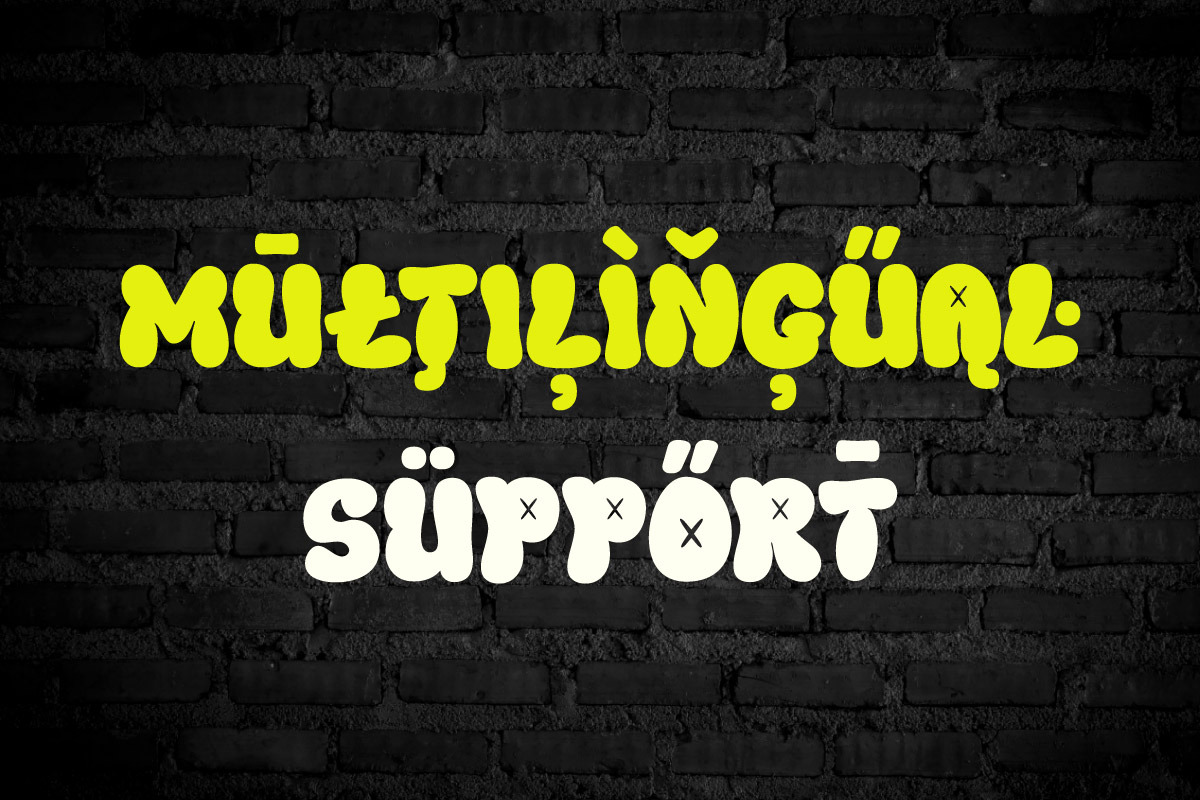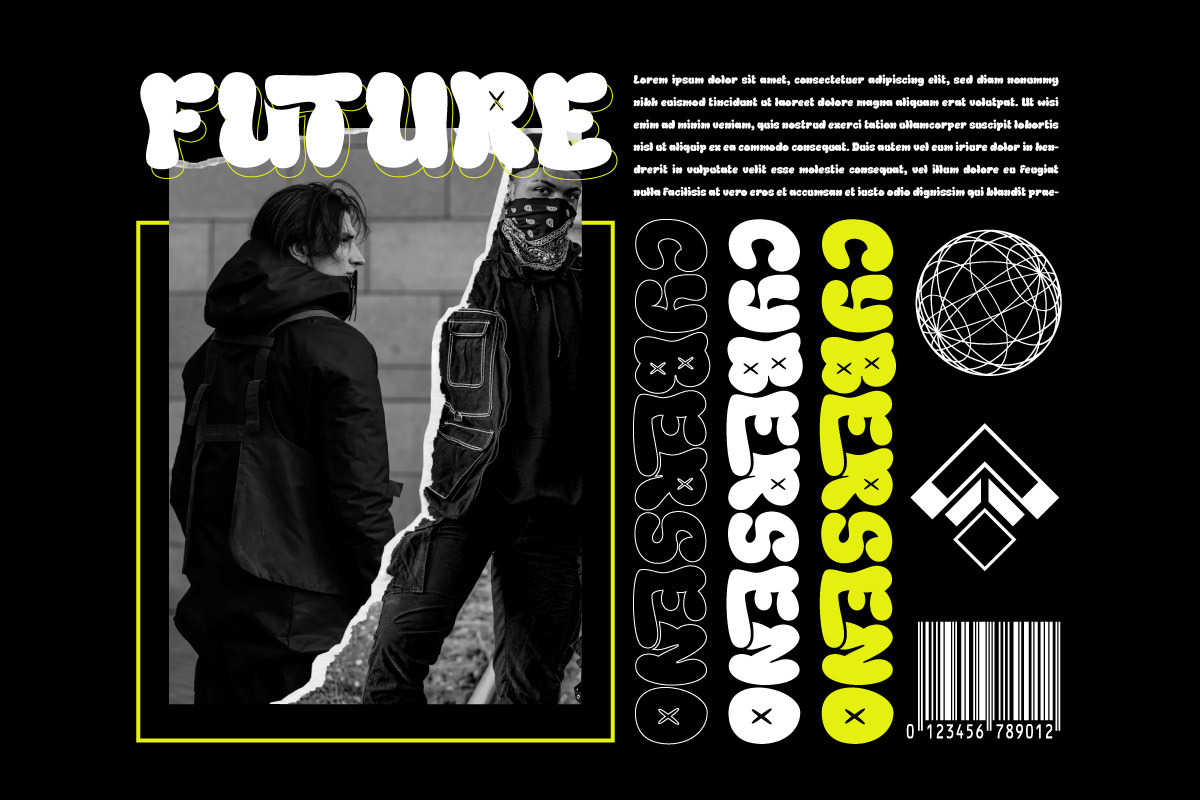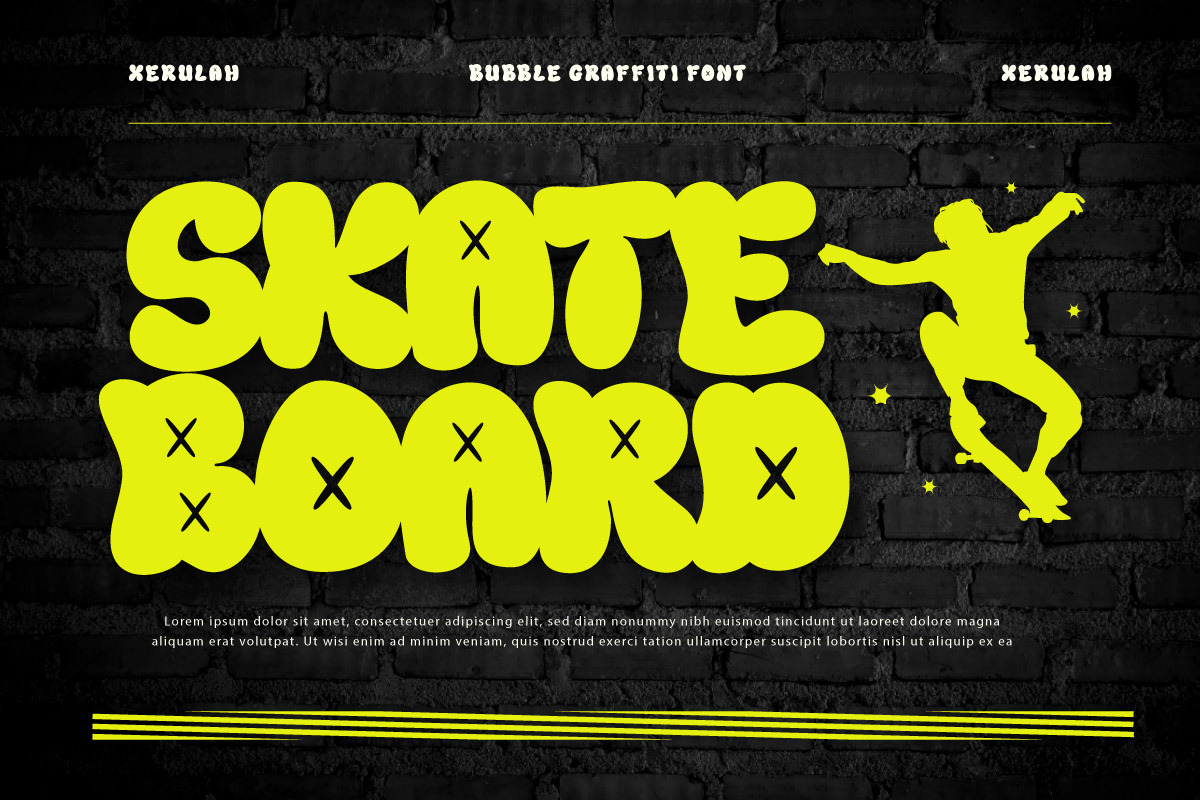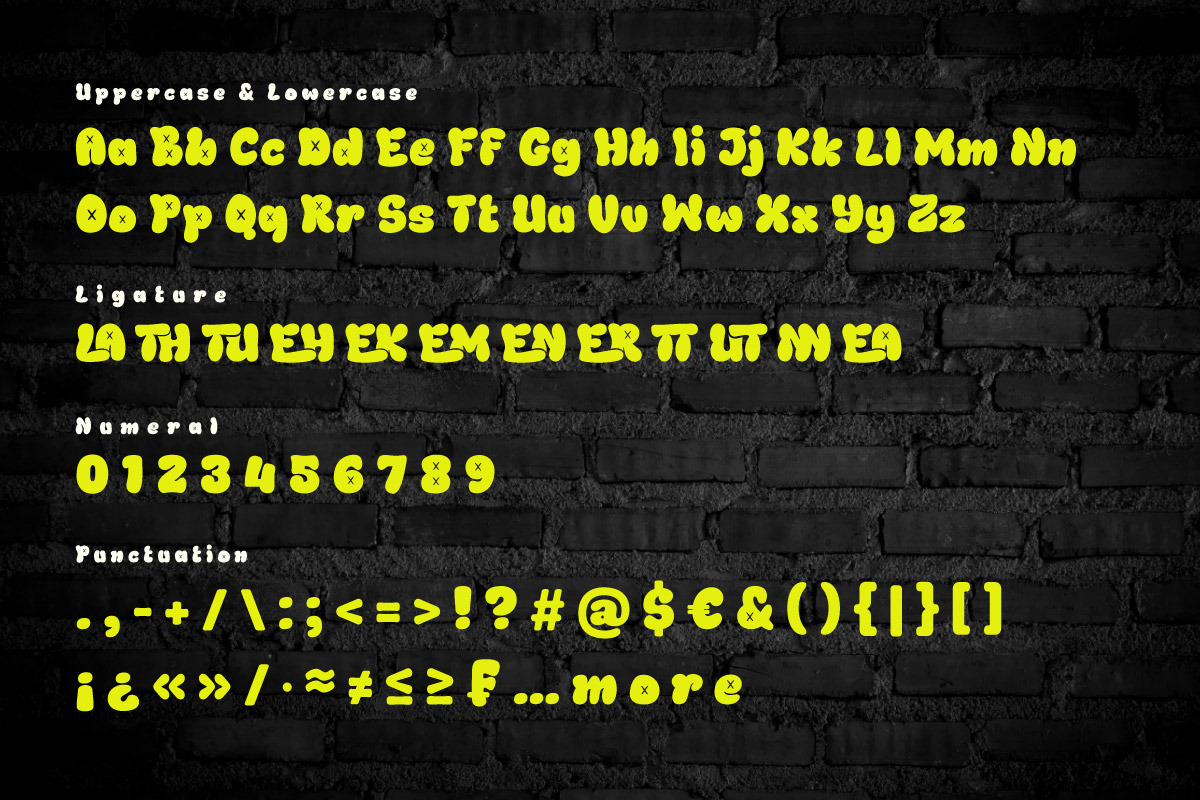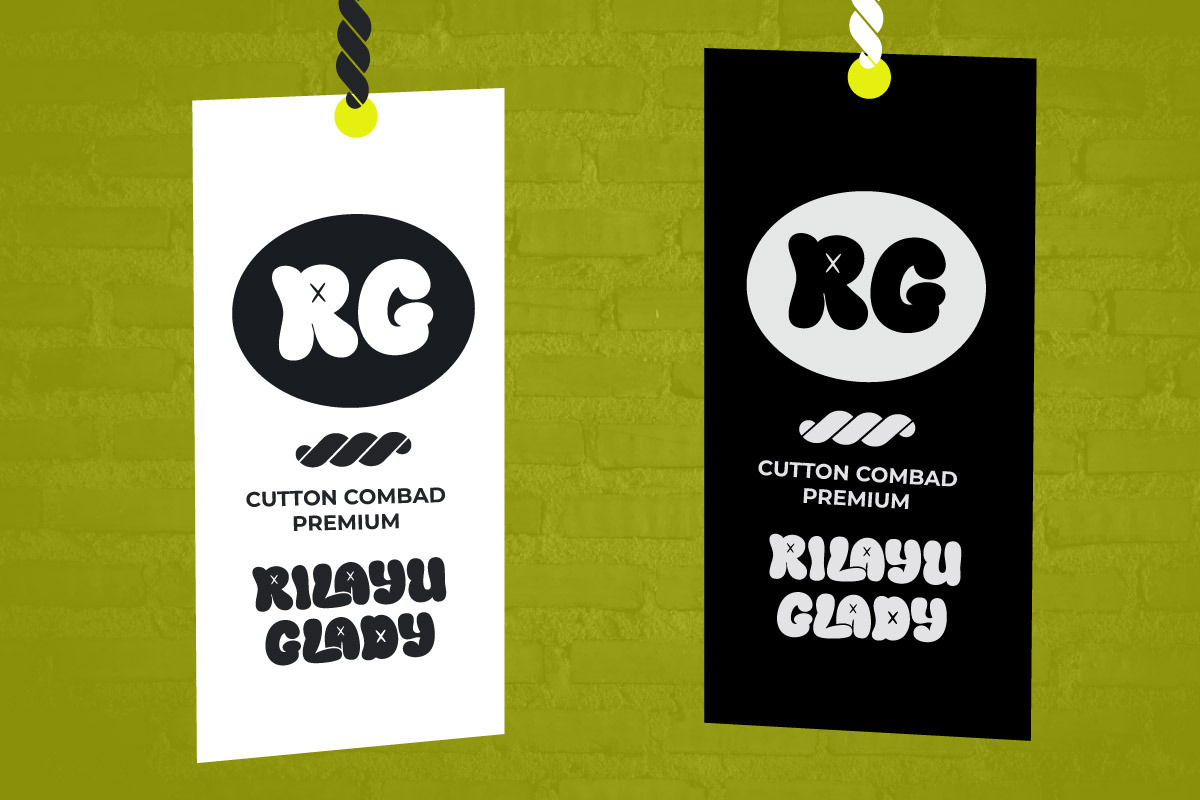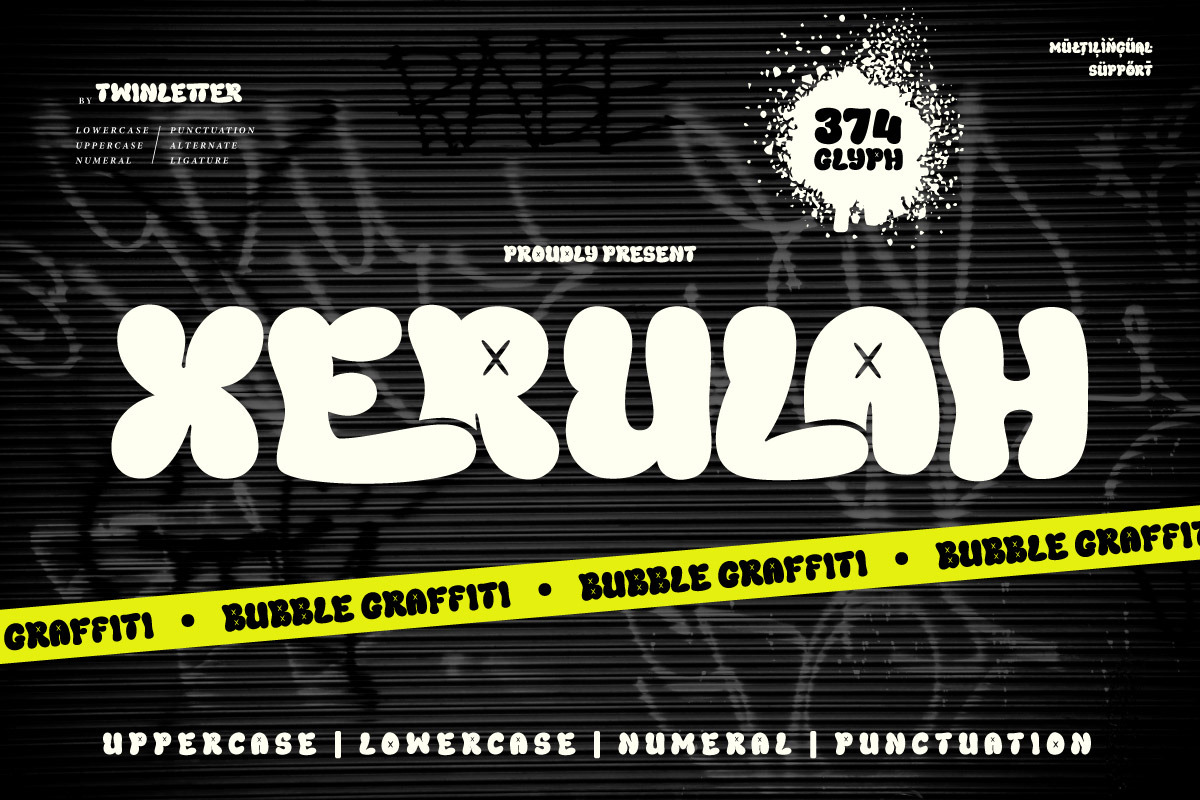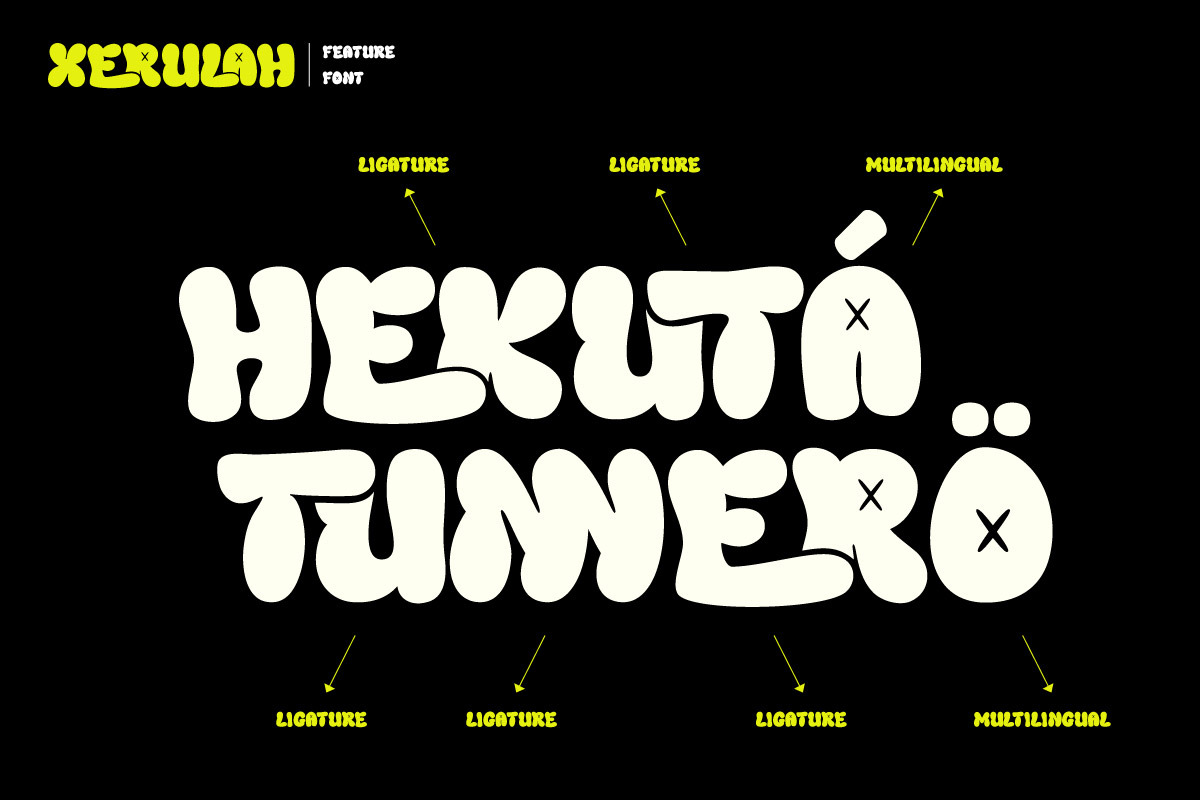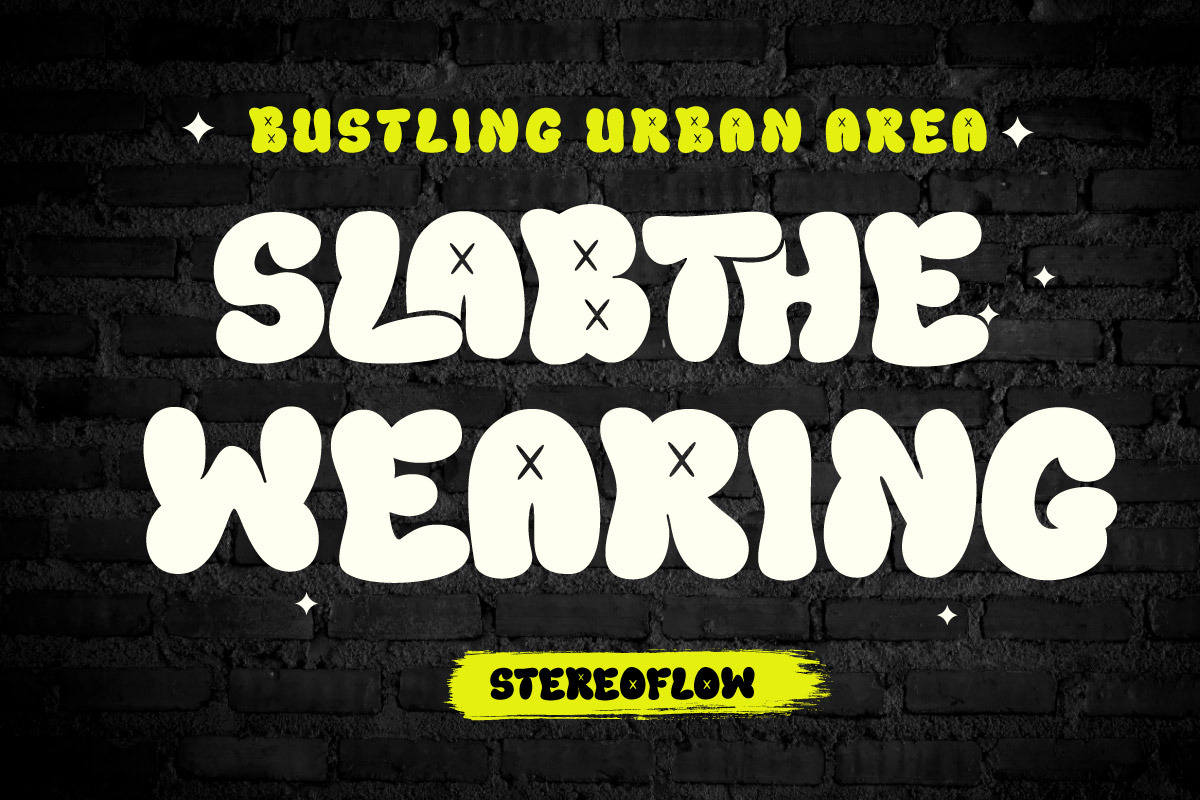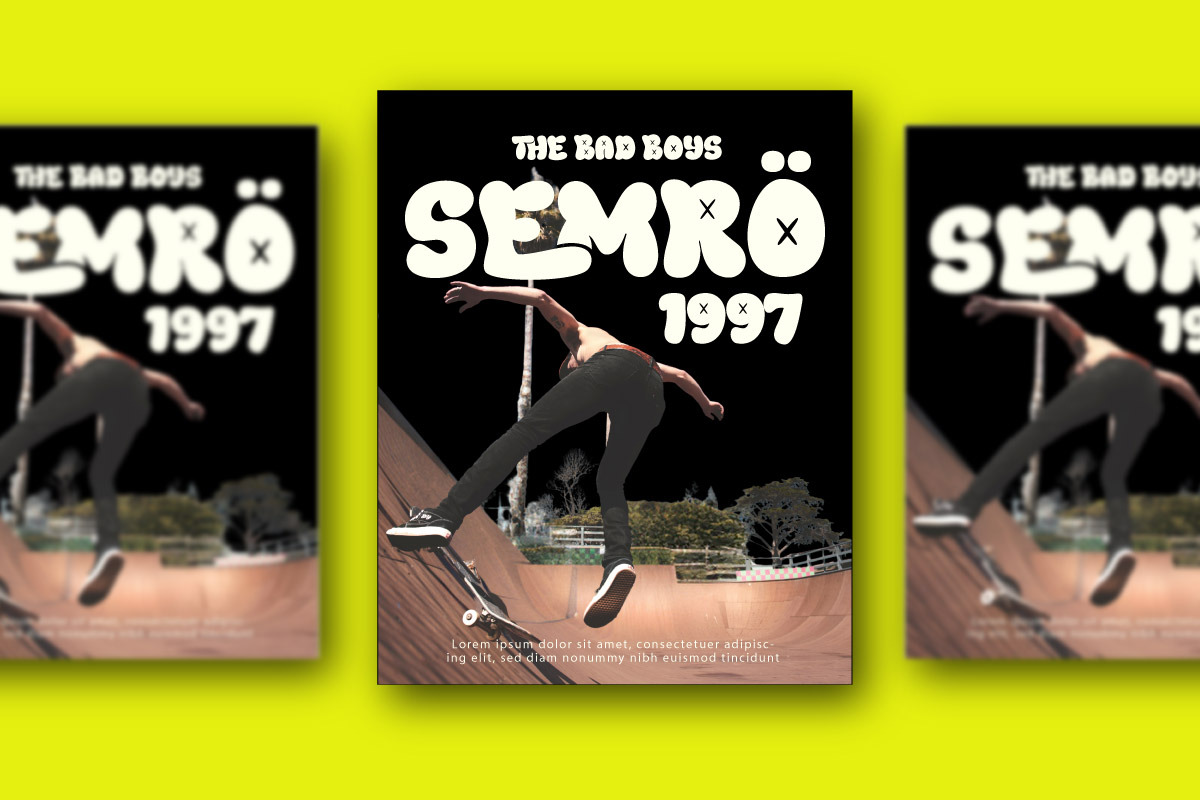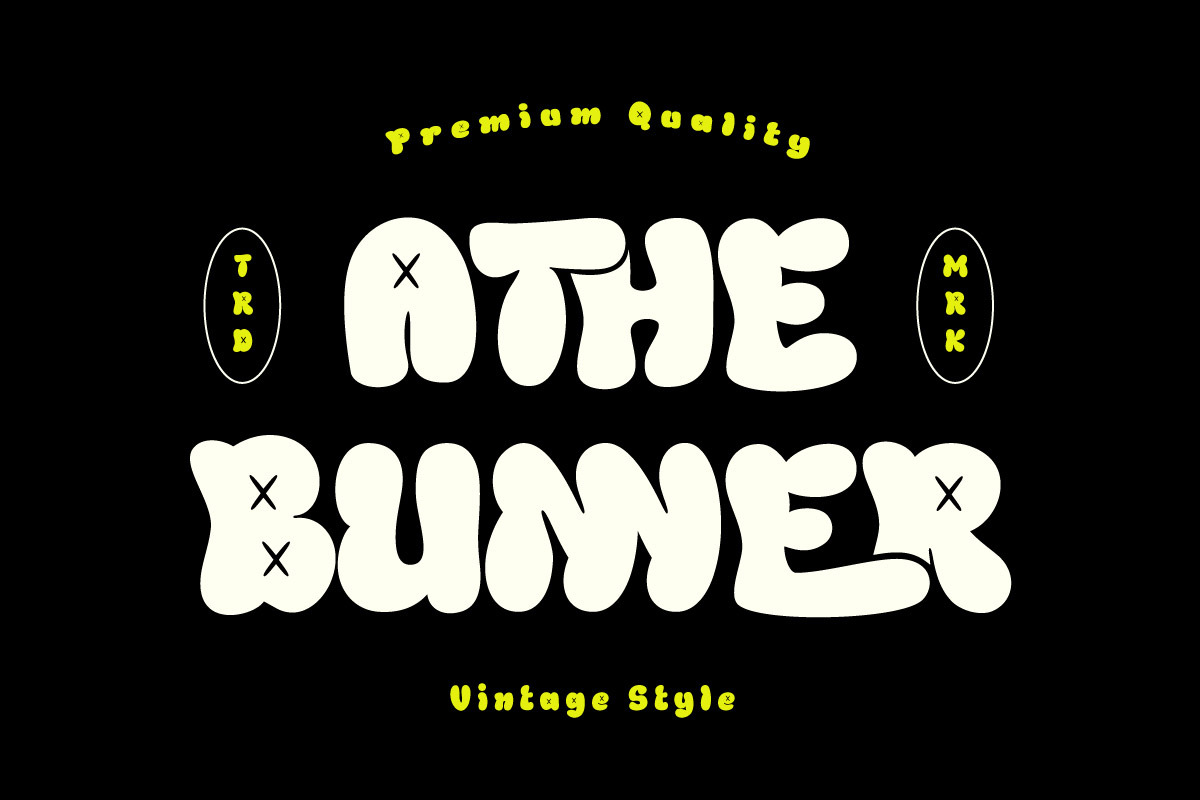
Xerulah - Bubble Graffiti Font
Enter the vibrant world of Xerulah, a bubble graffiti font that bursts with energy and creativity. Xerulah is designed for those who dare to be different, offering a playful yet powerful style that's perfect for street art, urban branding, and dynamic design projects. The bold, rounded shapes and graffiti-inspired aesthetics make Xerulah a standout choice for logos, posters, and apparel designs that demand attention. With Xerulah, your designs will not only speak but shout with excitement and originality. Embrace the edgy, artistic vibe of Xerulah and let your imagination run wild.
All glyphs and Feature
PUA Encoded Characters, Fully accessible without additional design software.
Fonts include Multilingual support